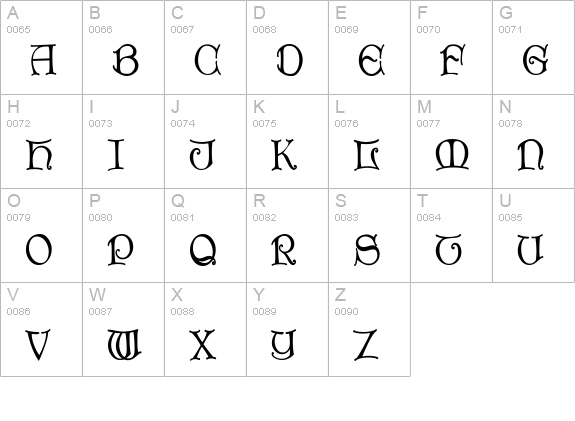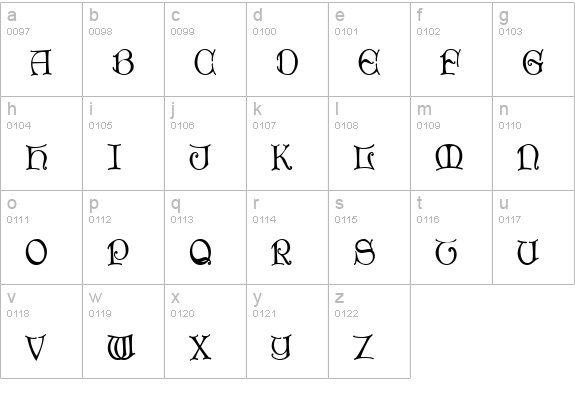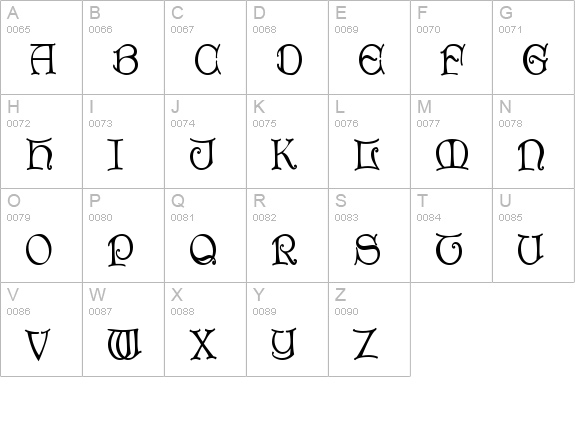
ThorinDisplayCaps Bold Font Details
ThorinDisplayCaps Bold is a strong, high-contrast variant in the ThorinDisplayCaps typeface family \xE2\x80\x94 well suited to headlines, attention-grabbing titles, and strong calls-to-action.
Introducing ThorinDisplayCaps Bold font, a striking and bold typeface that commands attention and exudes confidence. With its strong and prominent letterforms, this font is perfect for making a bold statement in any design project. ThorinDisplayCaps Bold font boasts a unique combination of sharp edges and smooth curves, resulting in a visually captivating display font that stands out from the crowd. Its powerful and dynamic presence makes it ideal for headlines, titles, logos, and other display purposes. Designed with versatility in mind, ThorinDisplayCaps Bold font can effortlessly adapt to a range of design styles, from modern and contemporary to vintage and retro. Its strong and authoritative appearance makes it suitable for a variety of industries, such as fashion, technology, sports, and more. One of the best features of ThorinDisplayCaps Bold font is that it is freely available to download at FontsMarket.com. This means that you can easily access and use this impressive font in your design projects without any cost. Whether you're a professional designer or a casual enthusiast, this free font offers a valuable resource to enhance your creative endeavors. With its bold and commanding presence, ThorinDisplayCaps Bold font is sure to make a lasting impression. Elevate your designs and captivate your audience with this visually striking typeface that is both powerful and freely available. Don't miss out on the opportunity to download ThorinDisplayCaps Bold font and unleash your creativity today!